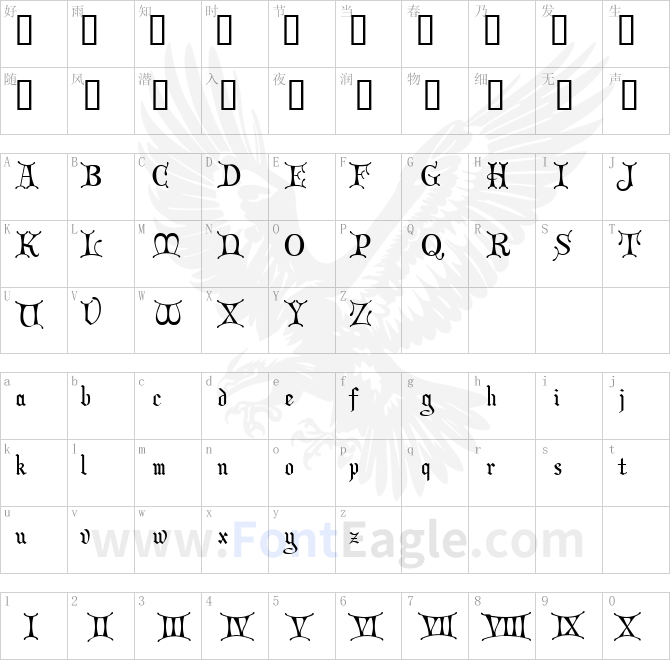
- Font name:Christmas Card
- Font Copyright:Christmas Card font v1.0 ©2000 HLohner (HLohner@aol.com • http://members.aol.com/fontner) Based on the hand‐lettered opening titles of the film “It’s a Wonderful Life” (Art Director: Jack Okey)